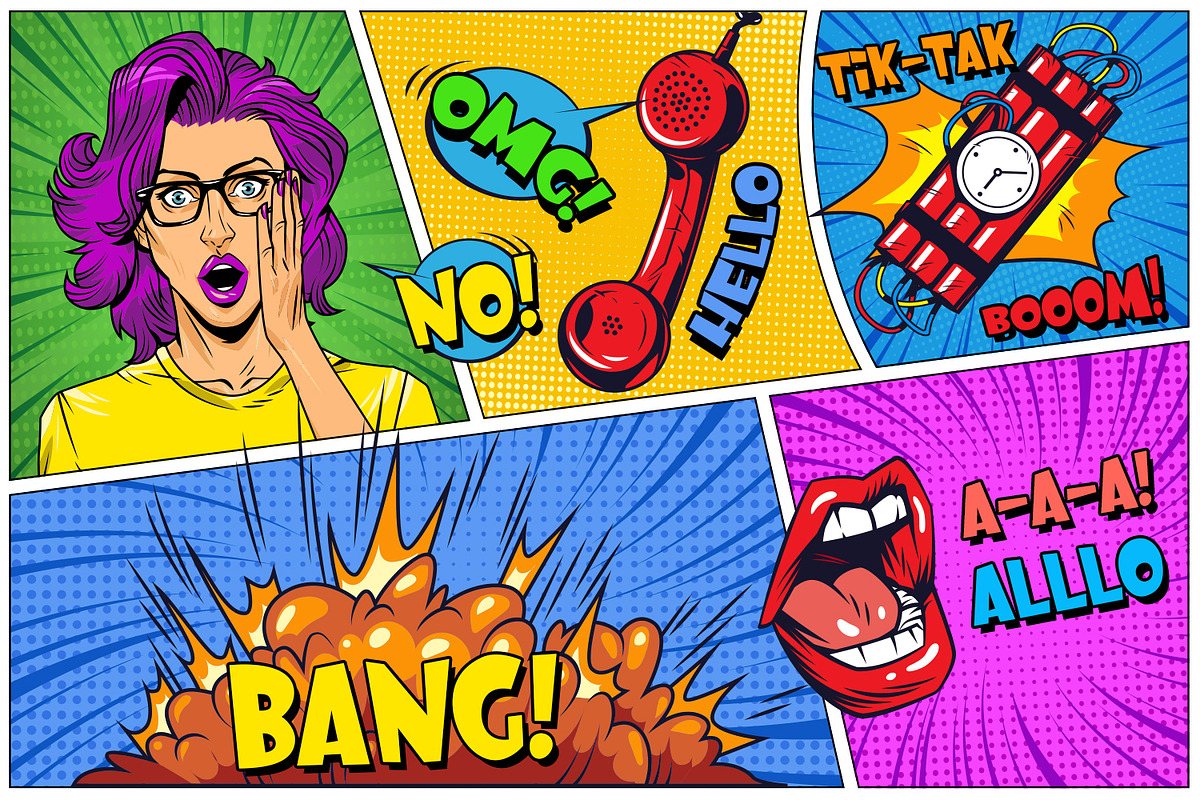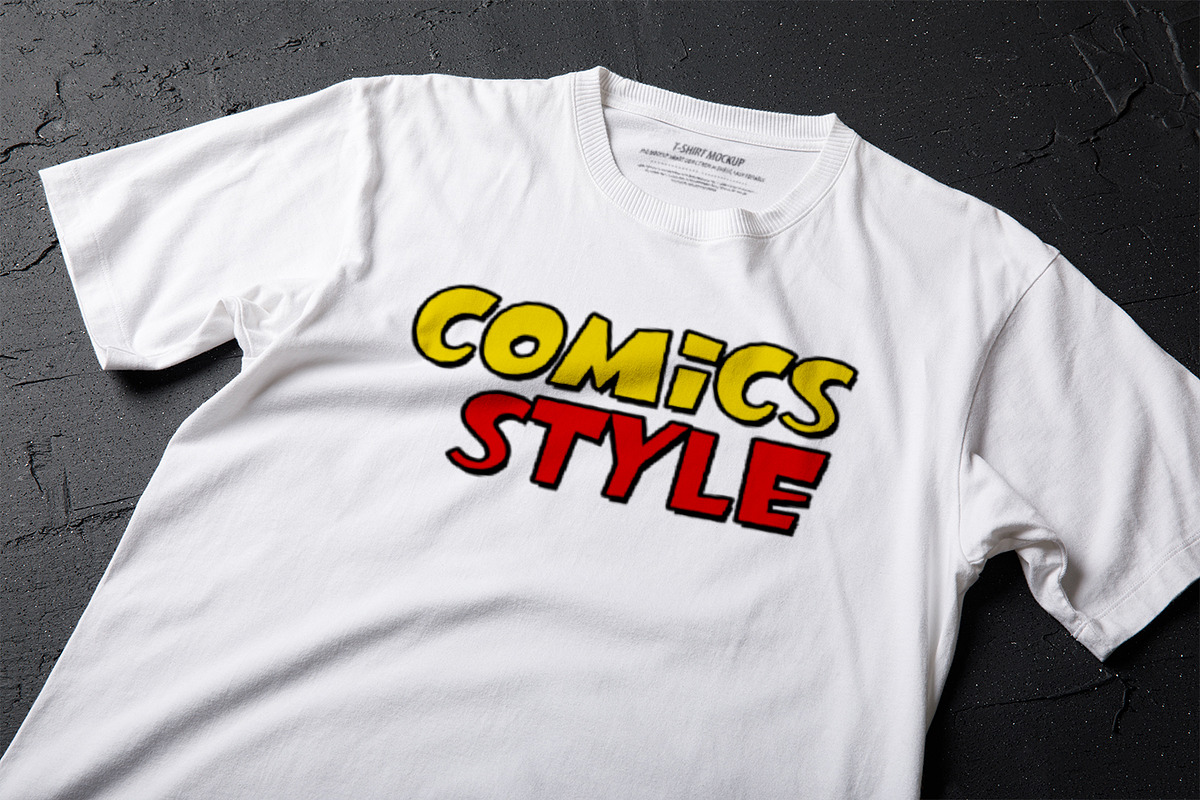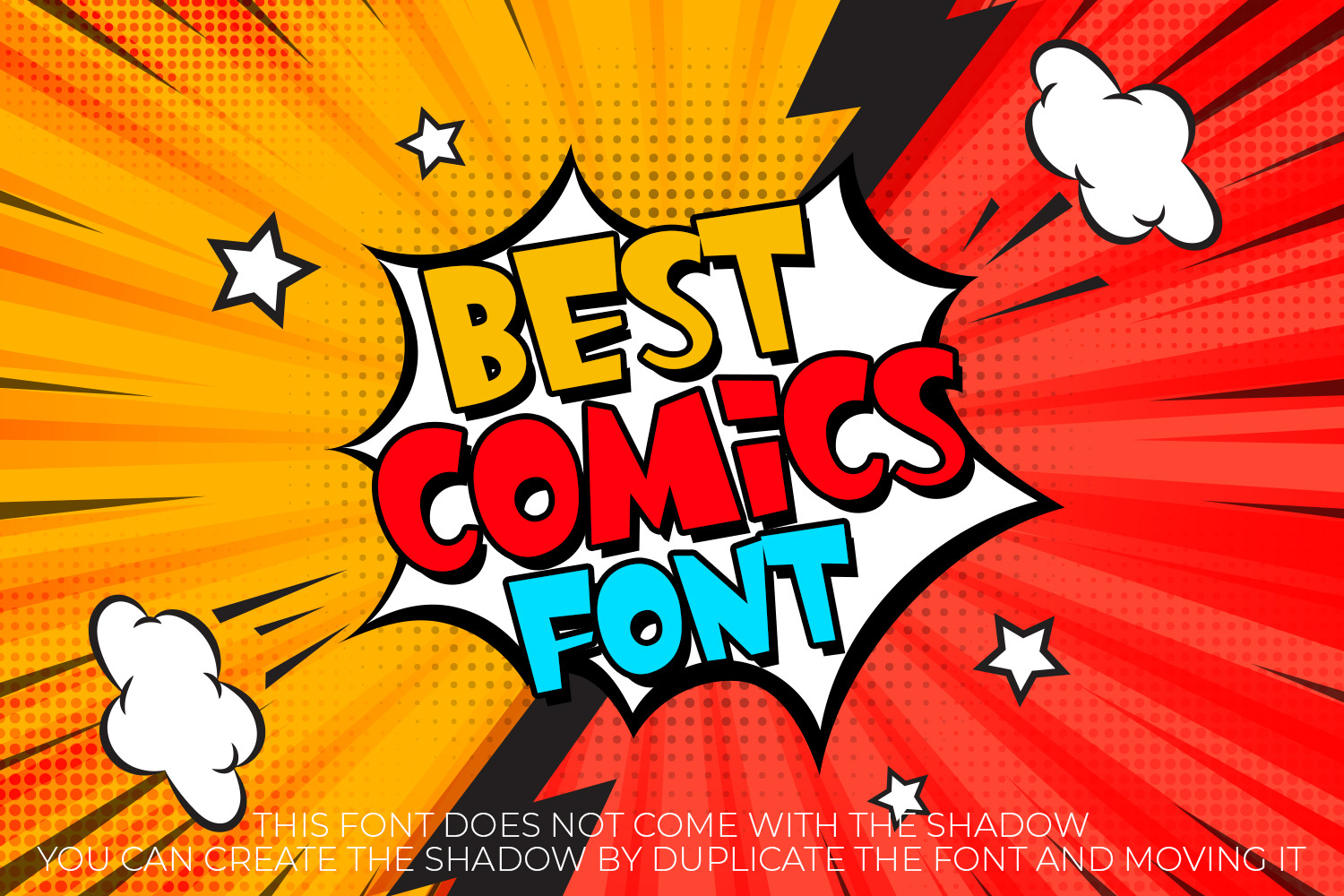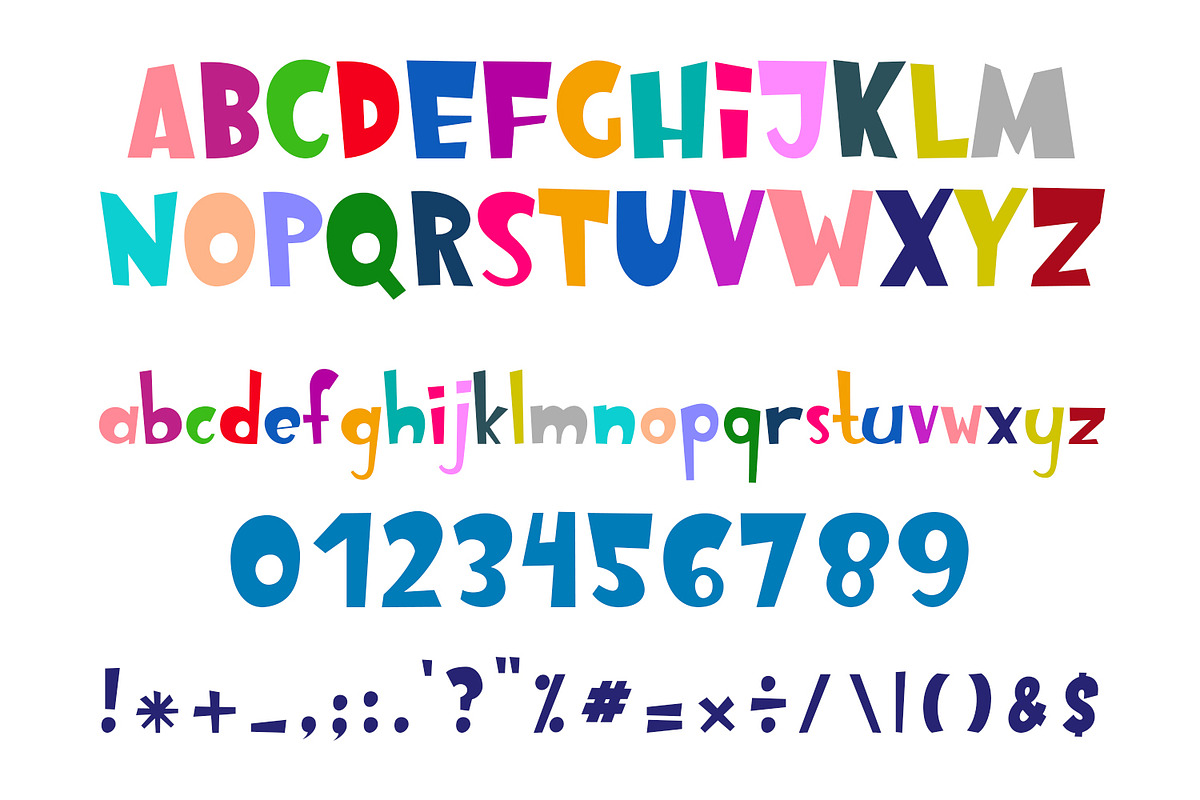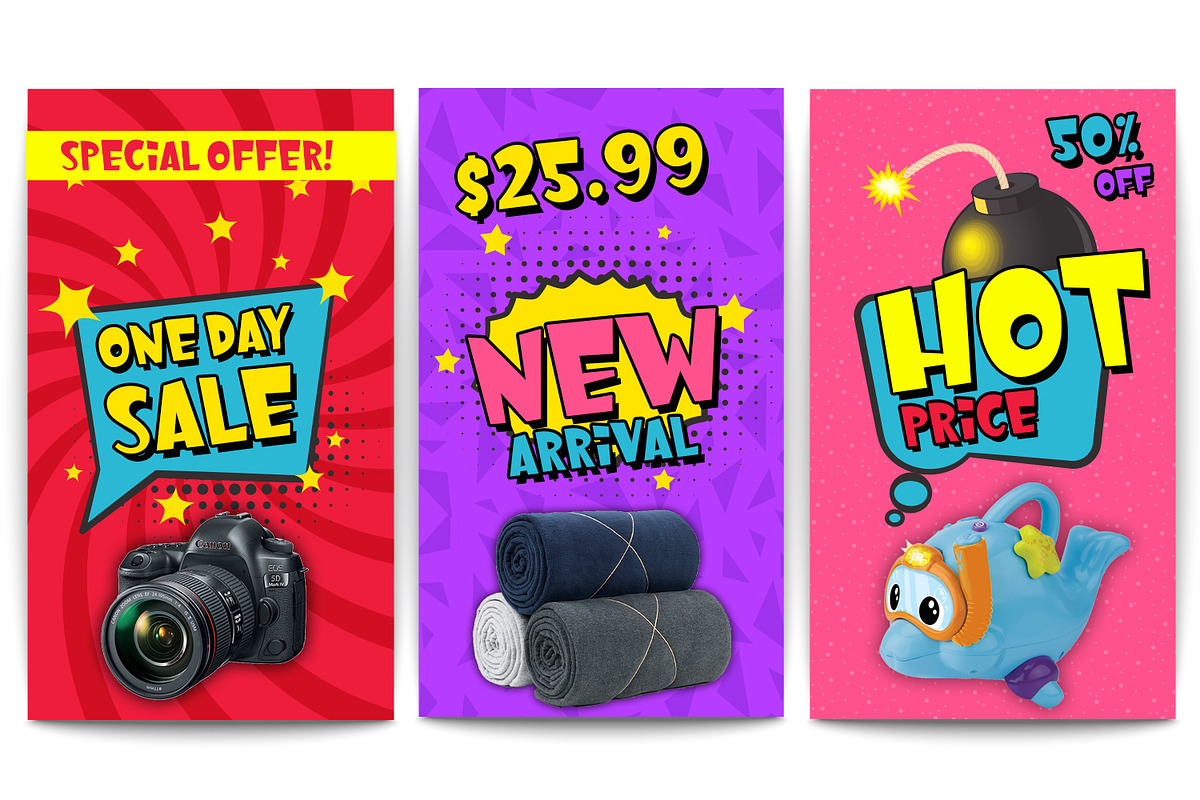
Best Comics Font
Best Comics Font embodies quirkiness and authenticity. This enchanting display font will turn any creative idea into a true standout. Get inspired by its fun style, and use it to brighten up any kids or school project!
This font does not come with the shadow effect by default. You can create this effect by duplicating the text and placing the duplicate behind the text yourself.